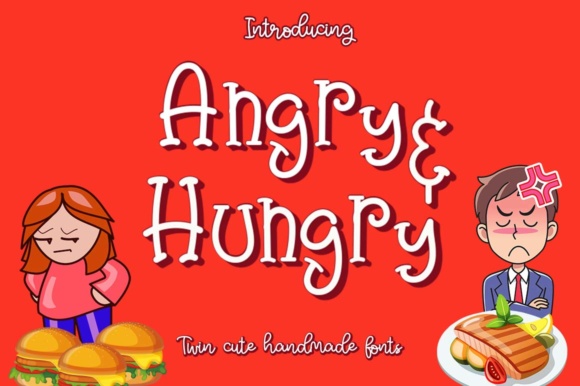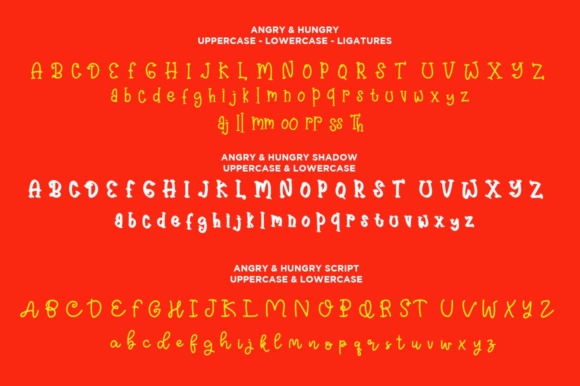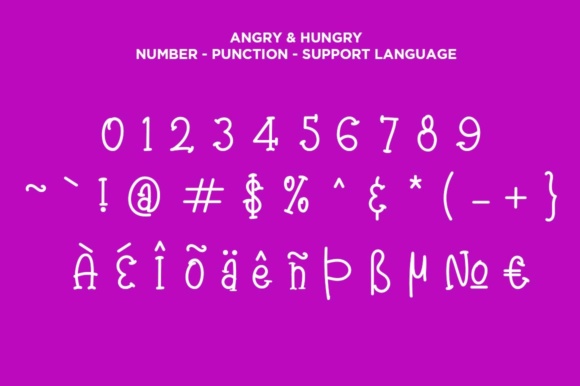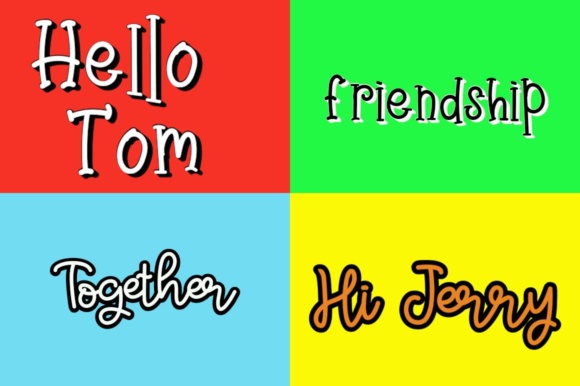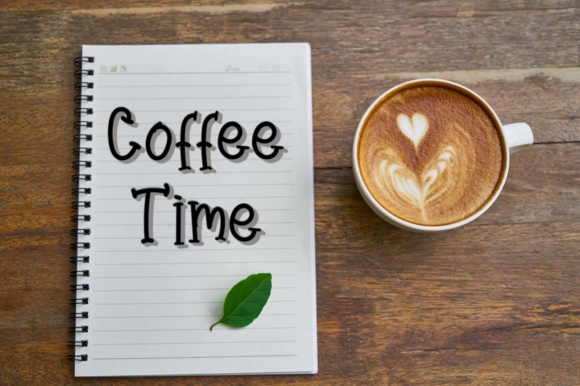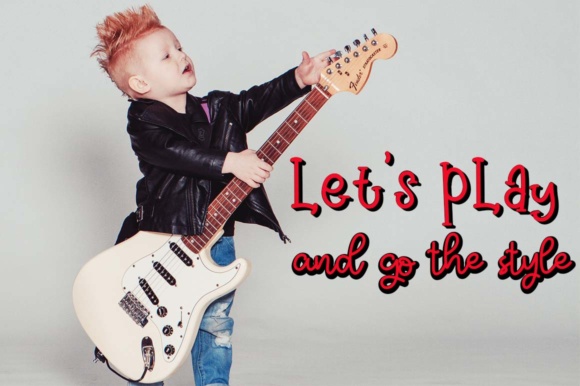
Angry & Hungry Font
About Angry & Hungry Font
The Angry & Hungry is a cute font family. It has a fun feel and comes in four different styles: regular, shadow, script, and script shadow.